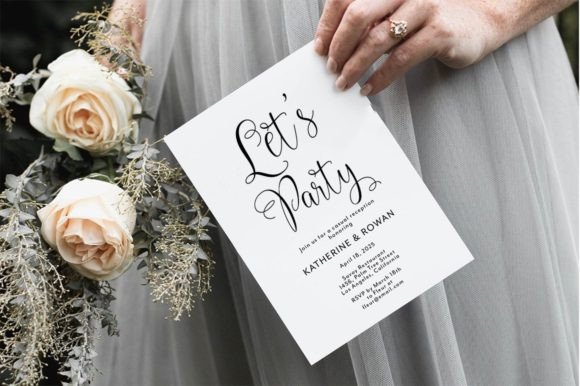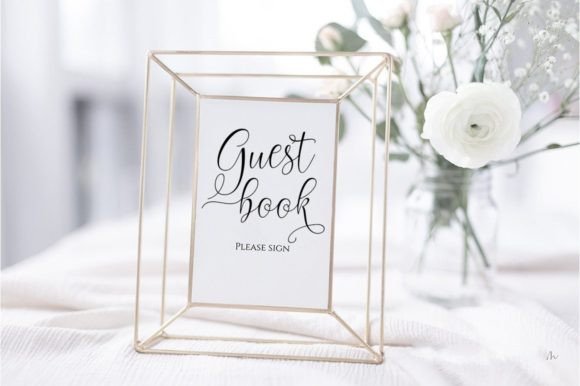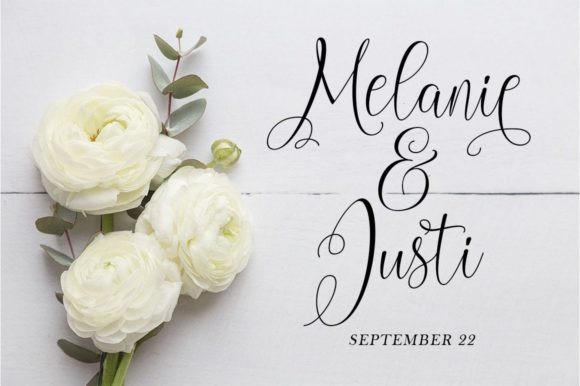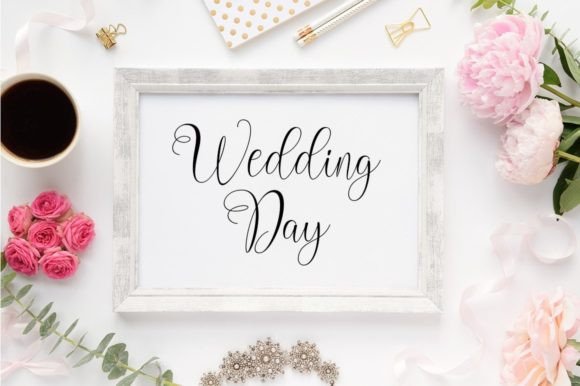
Discover the Magic of Mongalia Font
Have you ever been working on a creative project, staring at a blank page, and suddenly, a spark of inspiration hits you? The words start flowing, and your design begins to take shape. That’s exactly what happens when you incorporate the beautiful Mongalia Font into your work.
This elegant, handwritten font is a game-changer for designers, offering a smooth, flowing style that effortlessly elevates any design. With its beautifully balanced character, varied baselines, and stunning alternatives, Mongalia Font is the perfect design resource for creating high-quality typographic designs.
Key Features of Mongalia Font
- High-quality, elegant design suitable for creative projects, making it a valuable design resource.
- Perfect for use in logos, branding materials, and other creative projects where a unique and stylish font is required.
Honest Review: Mongalia Font
I recently had the chance to work with the Mongalia Font, and I must say, it’s been a game-changer for my design projects. This font is a great addition to any designer’s toolkit, offering a unique and stylish aesthetic that’s perfect for creative projects.
One of the things that stands out about the Mongalia Font is its high quality and versatility. It’s available for free download, making it an excellent resource for designers on a budget. The font is also incredibly easy to use, with a transparent background that makes it simple to integrate into any design.
Here are some of the things that work well with the Mongalia Font:
- ✨ Unique and stylish aesthetic
- ✨ High quality and versatile
- ✨ Easy to use and integrate into designs
However, there are a few limitations to be aware of:
- ⚠️ Limited character set (only includes uppercase and lowercase letters, with a few punctuation marks)
Overall, I’m really impressed with the Mongalia Font. It’s a great design resource that’s perfect for smaller creative projects or personal use. While it may have a few limitations, its high quality and unique aesthetic make it a worthwhile addition to any designer’s toolkit.
Tips for Getting the Most Out of Mongalia Font
Experiment with different font sizes, colors, and styles to create unique and eye-catching designs. Use the font in combination with other design elements, such as images and graphics, to add depth and interest to your project.
Mongalia Font is suitable for a wide range of creative projects, including logos, brochures, business cards, and social media graphics. It’s also a great choice for web design and digital marketing projects, where a high-quality and modern font is essential.